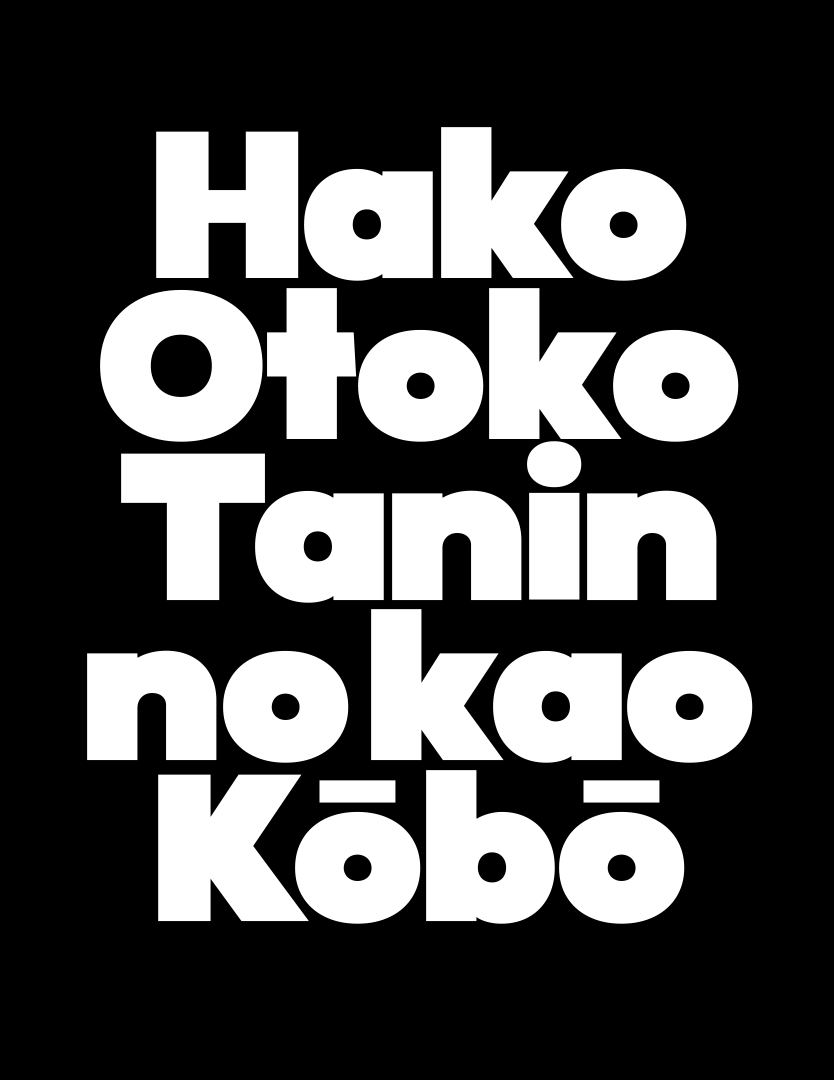
Non Tempo is a geometric typeface inspired by modern classics such as Futura, Super Grotesk, and other families that explored the purity of basic shapes. Unlike other, more rigid geometric designs, Non Tempo introduces subtle tensions in its curves and diagonals, creating a visual contrast that adds texture and movement to blocks of text. The proportions of its glyphs emphasize height and direction, offering clear readability and a contemporary character.
As a complement, the family includes a stencil version featuring small, strategically placed cuts within the strokes. This variation brings a more experimental and expressive tone while maintaining the structural coherence of the main version. The result is a versatile typeface that adapts seamlessly to both functional and conceptual contexts, always preserving the same geometric foundation and formal rigor.
Non Tempo aims to be a contemporary reinterpretation of geometric sans serifs—clean, precise, and distinguished by a subtle character that makes it both recognizable and timeless within any typographic system.